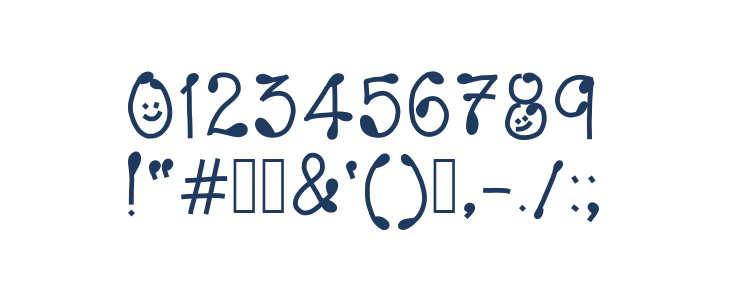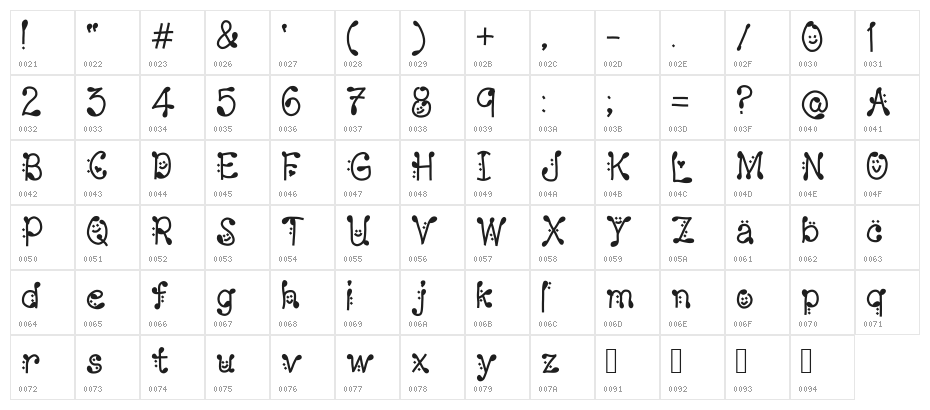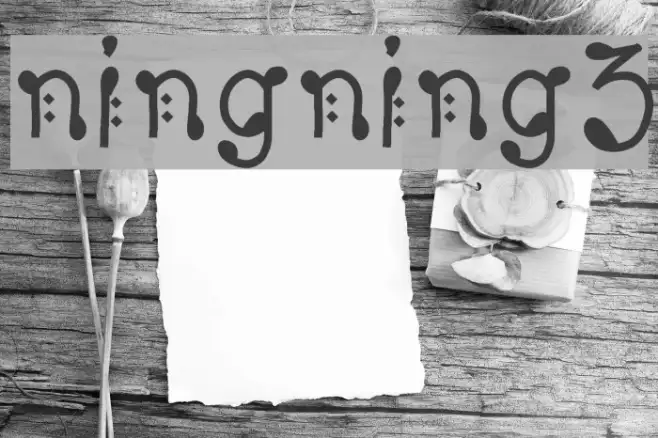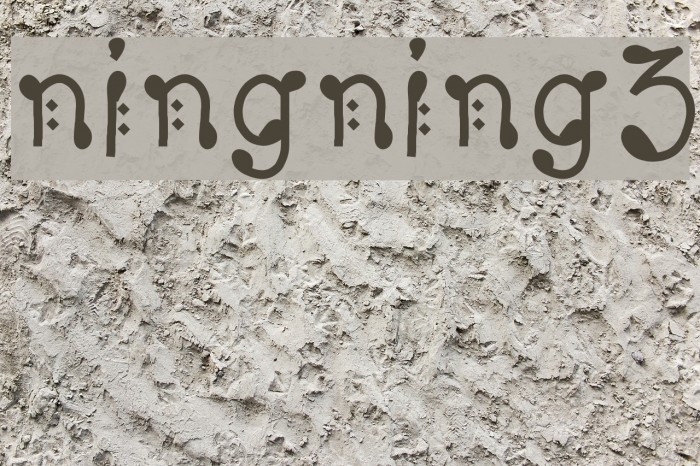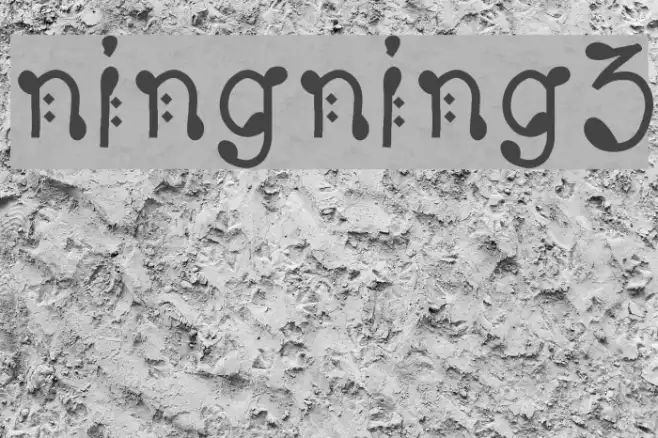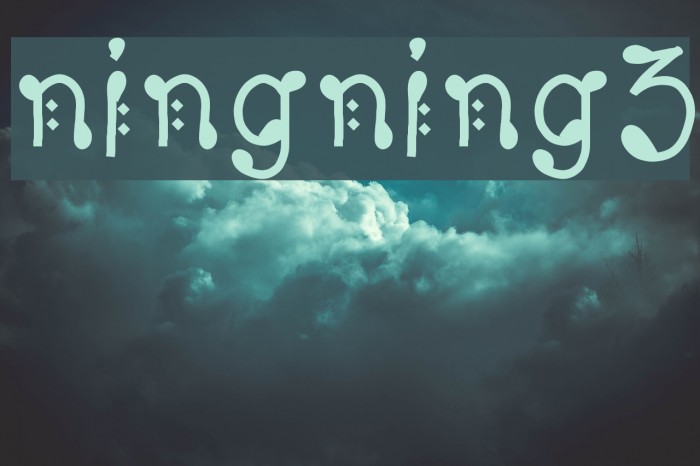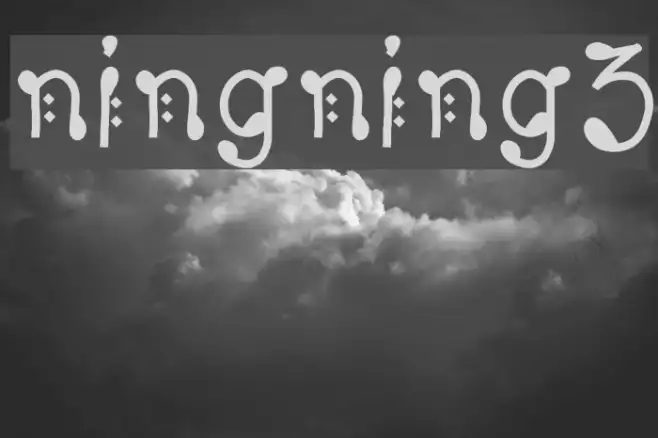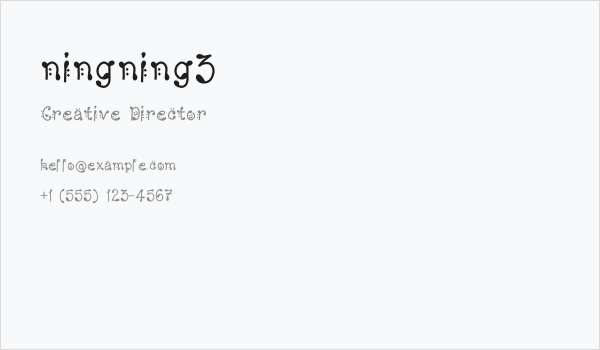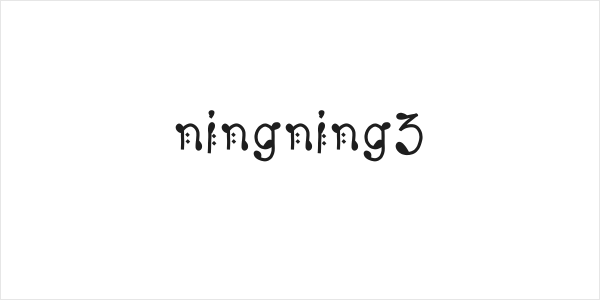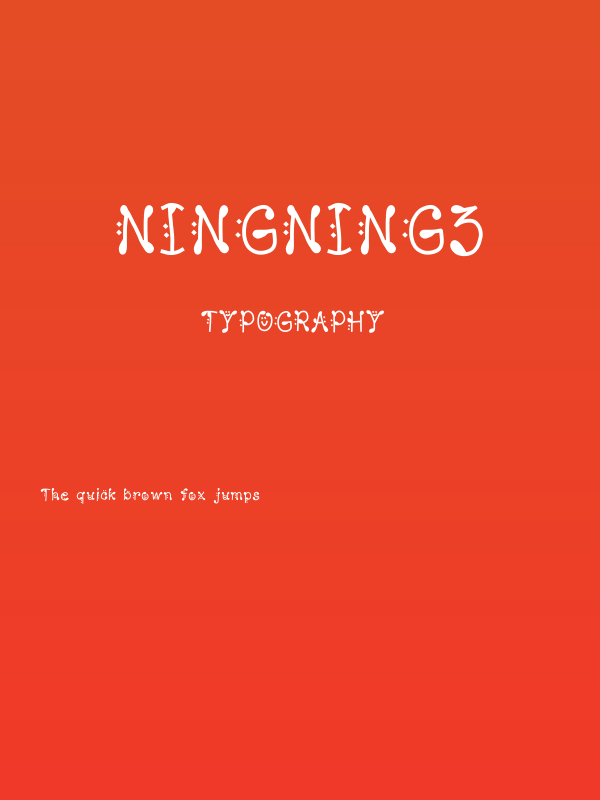
ningning3 Font
ningning3 Description
This playful and whimsical font features a unique design with decorative elements integrated into each character. The letters are adorned with small dots and lines that give them a lively and cheerful appearance. The uppercase and lowercase letters maintain a consistent style, with rounded edges and a slightly irregular shape that adds to the font's charm. Numbers and special characters follow the same decorative theme, making the font suitable for creative and fun projects. The overall design is eye-catching and distinct, perfect for adding a touch of personality to any text.